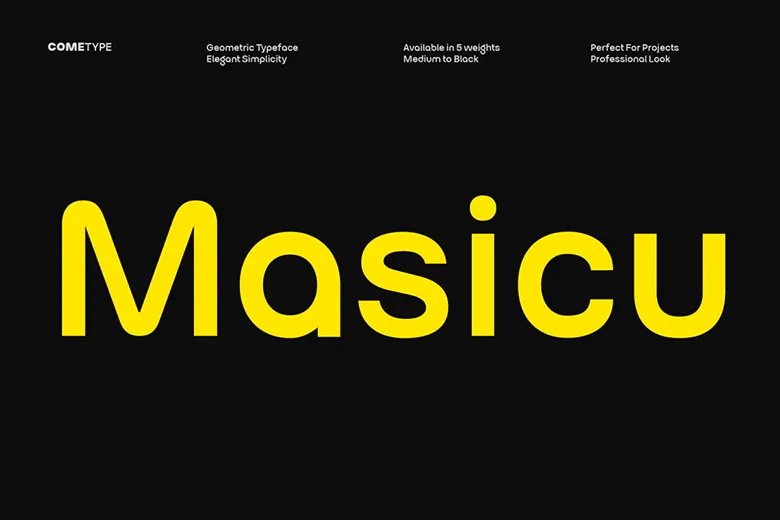
Masicu is a contemporary sans-serif font crafted with accuracy and elegance. It comes in five variations, medium, semi-bold, bold, extra-bold, and black—providing you with many choices for your design needs. Its sleek, geometric structure makes it perfect for branding, headings, posters, and any other modern projects that require a bold, refined appearance.
Whether you’re designing a logo, flyer, or website, Masicu will help your project make a statement. With its sharp, streamlined design, it’s easy to read and great for making a powerful, stylish impact. If you’re looking for a font that’s both modern and adaptable, Masicu is an excellent pick for any creative endeavor.
Masicu Sans Serif Font
| Designer | Come Type |